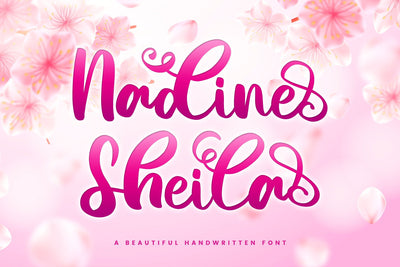
Nadine Sheila Beautiful Script Font
Nadine Sheila is a flowing handwritten font, described by an elegant touch, perfect for your favorite projects. Fall in love with its incredibly distinct and timeless style and use it to create spectacular designs!